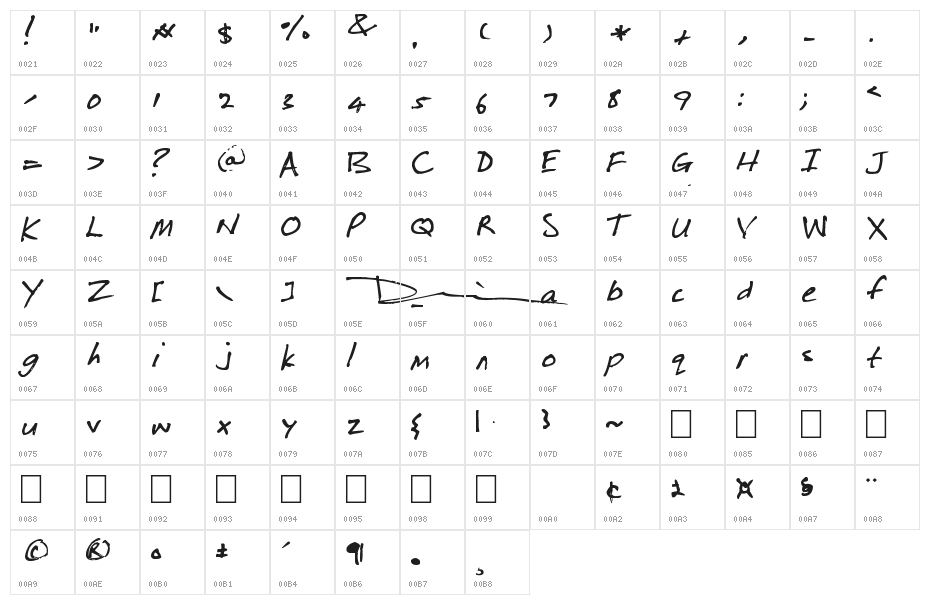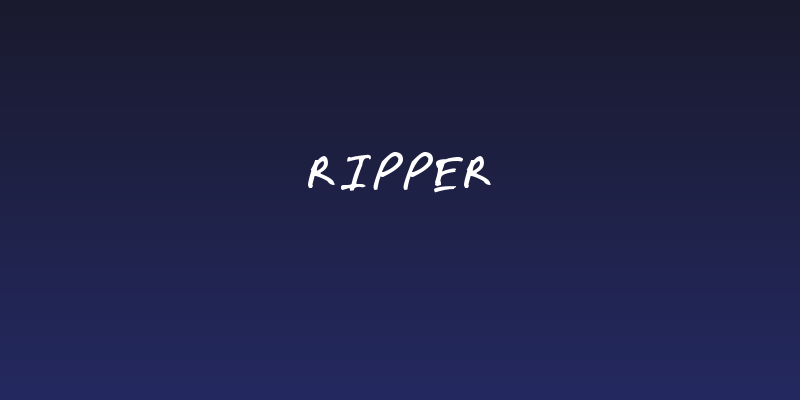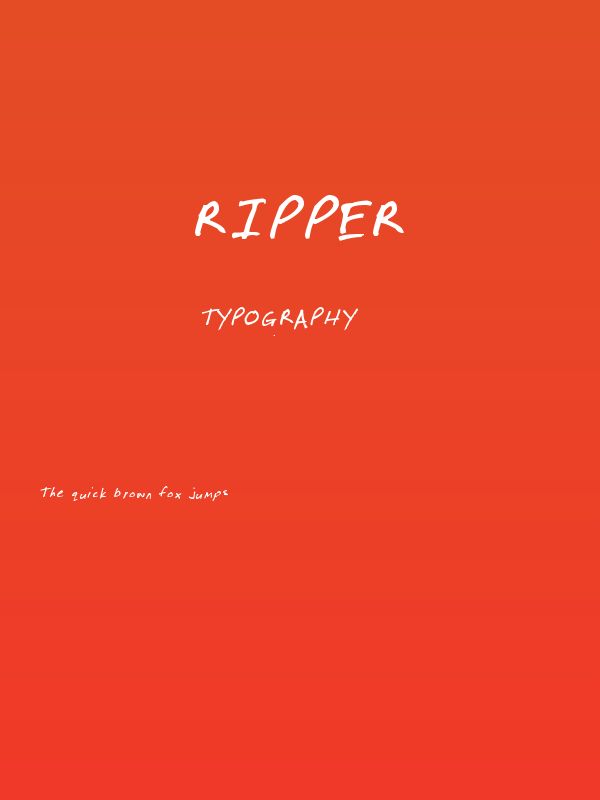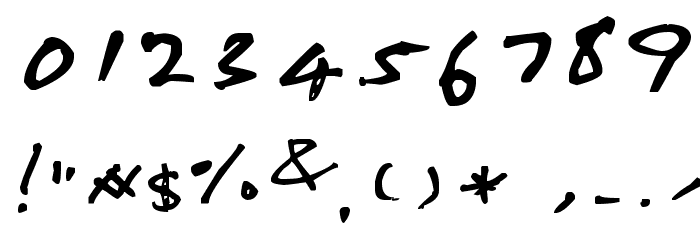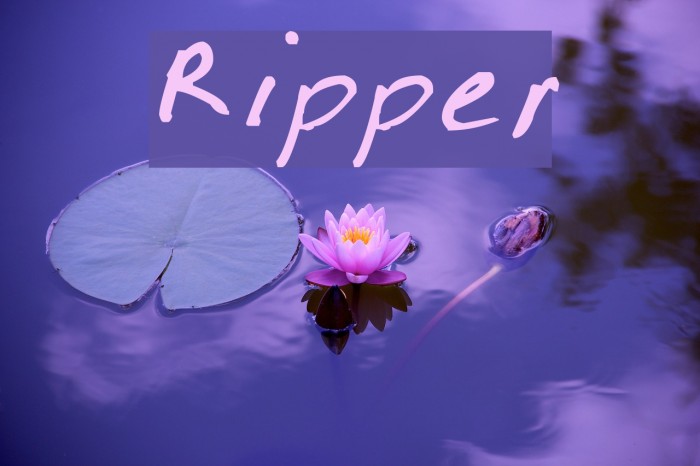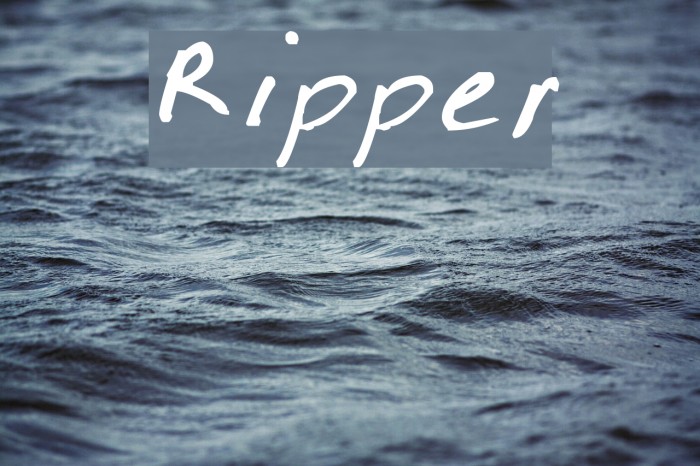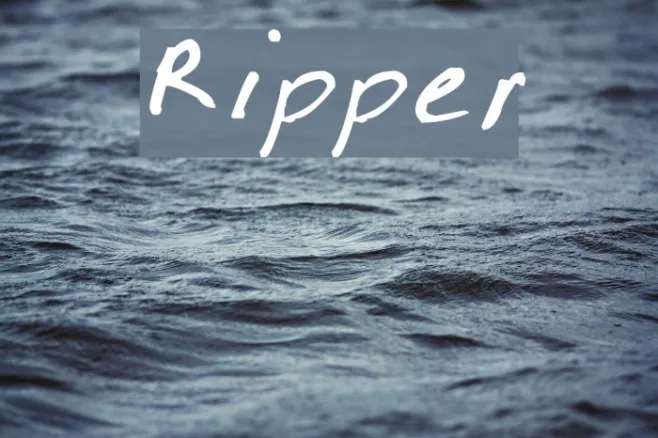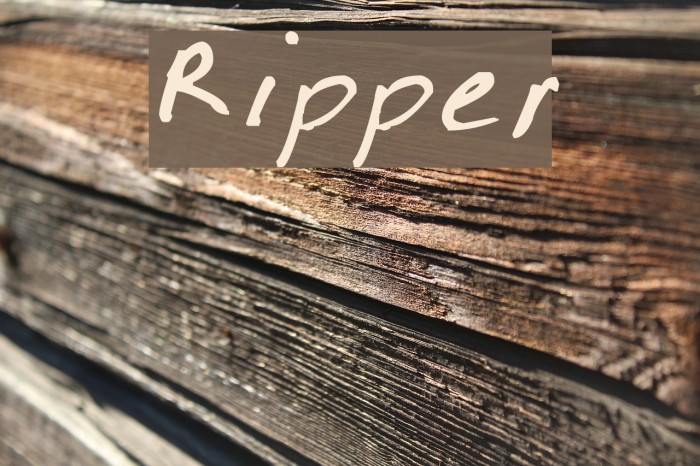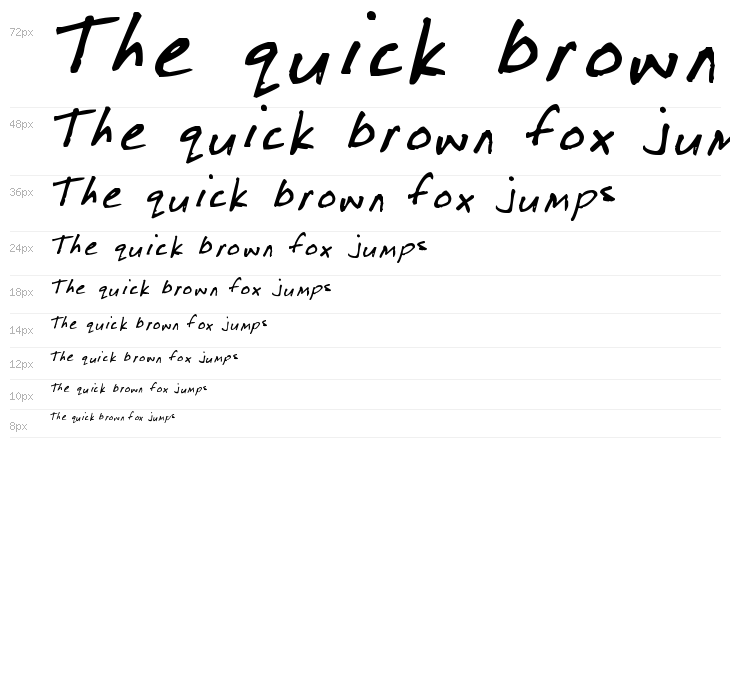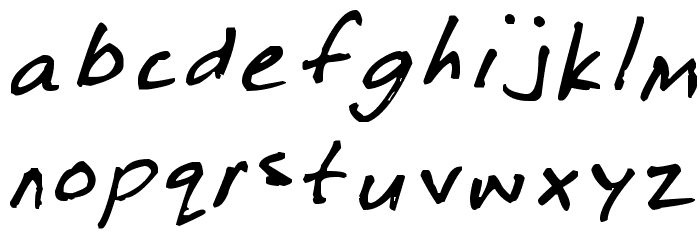
Ripper Font
Ripper Description
This font exudes a casual and handwritten style, characterized by its irregular and dynamic strokes that mimic natural handwriting. The letters are slightly slanted, adding a sense of motion and informality. Each character has a unique flair, with varying stroke widths that give it a lively and personal touch. The uppercase letters are bold and prominent, while the lowercase letters maintain a consistent flow, enhancing readability. The numbers and special characters follow the same handwritten aesthetic, making the font versatile for creative projects.